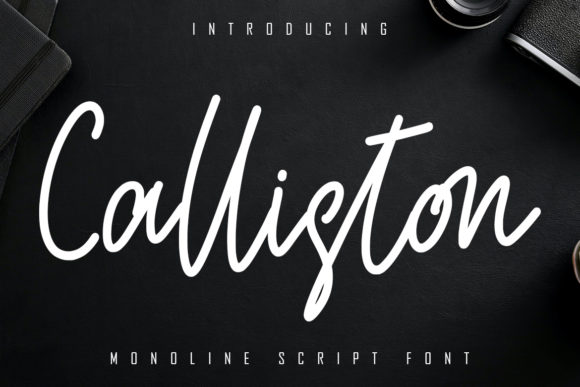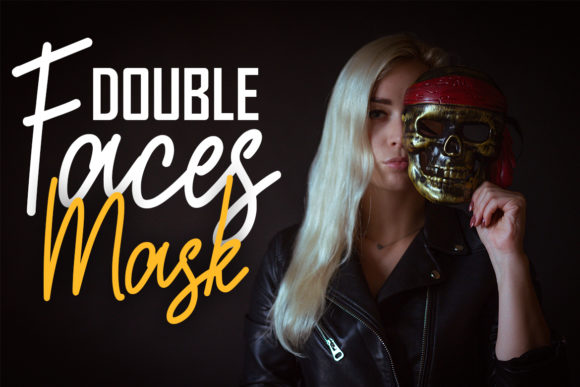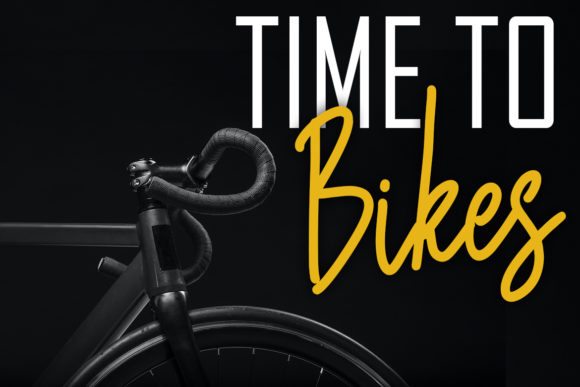
About Calliston Font
Calliston is a relaxed and flowing handwritten font. It looks stunning on wedding invitations, thank you cards, quotes, greeting cards, logos, business cards and every other design which needs a handwritten touch.